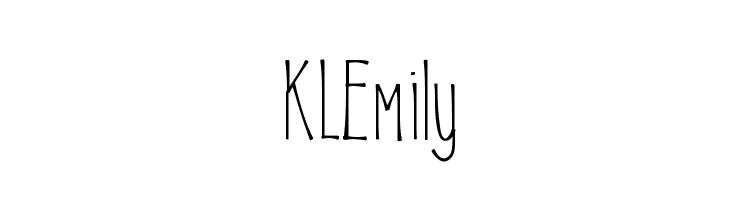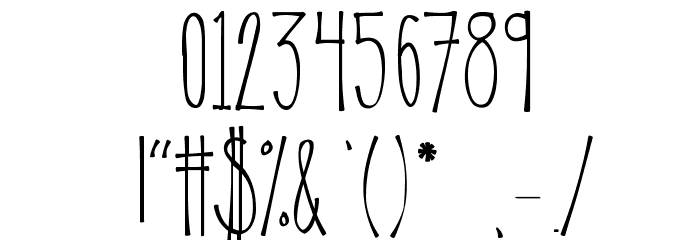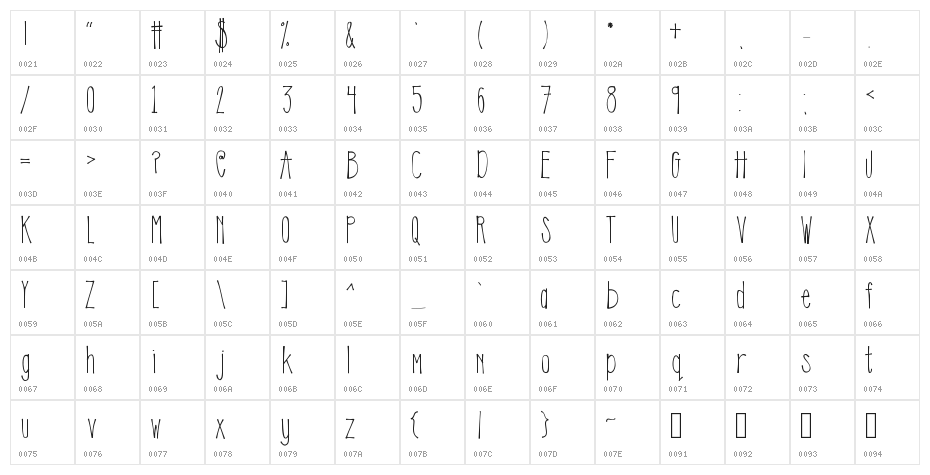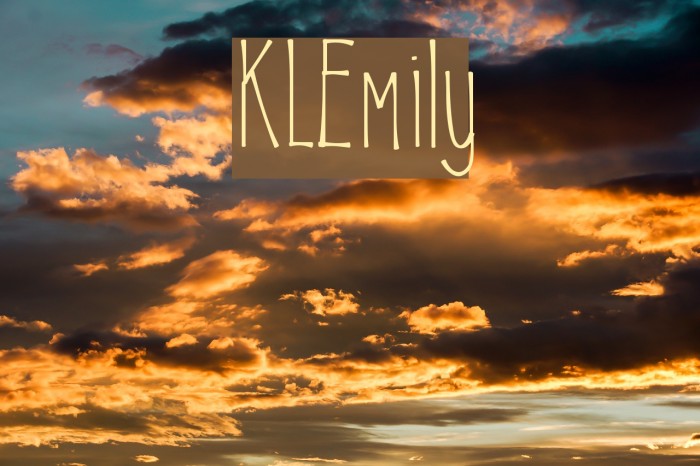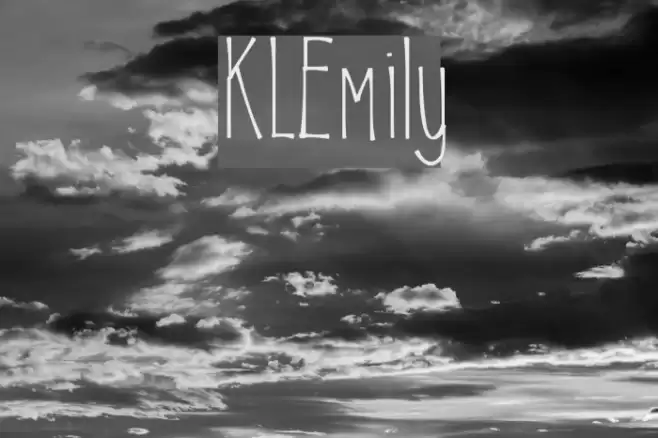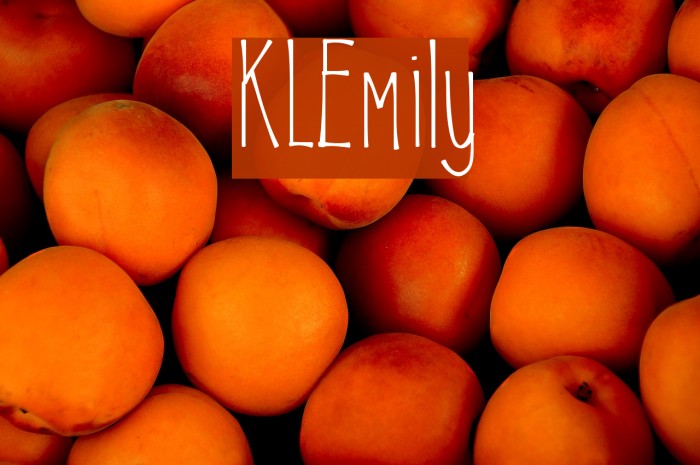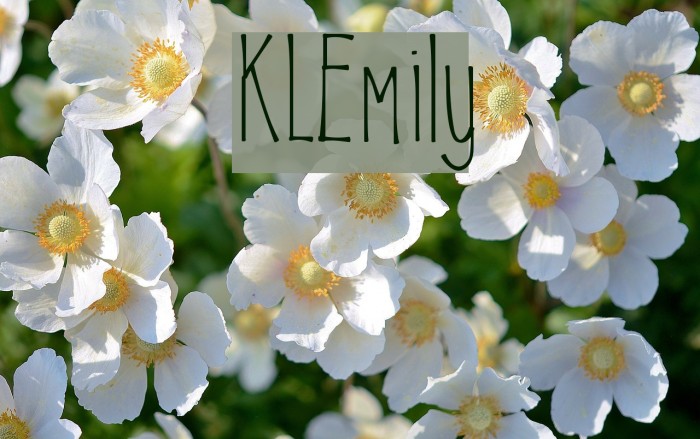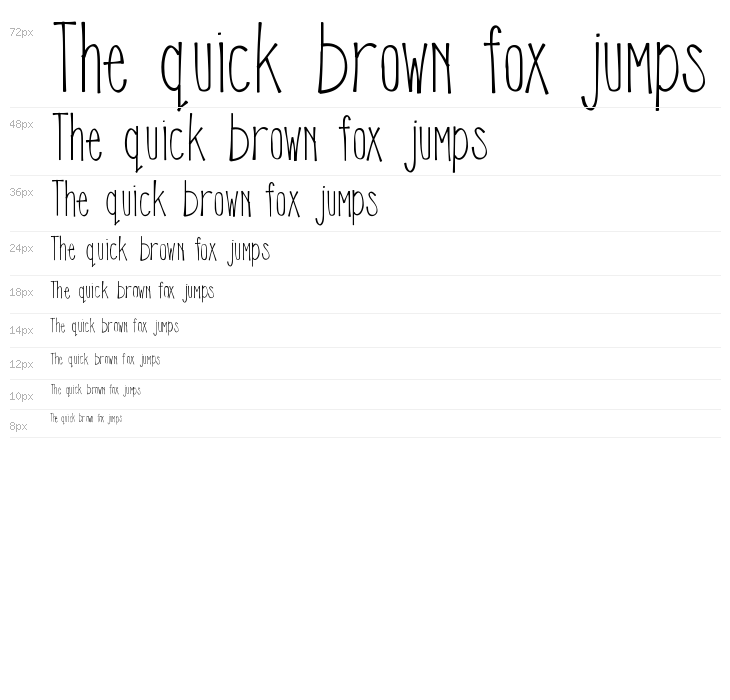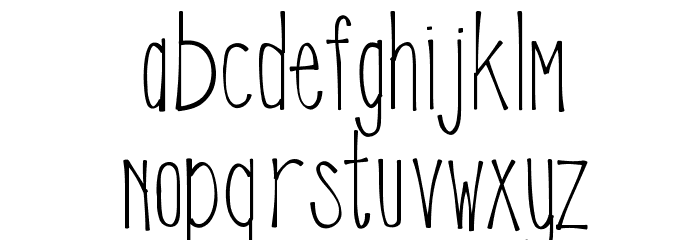
KLEmily Font
KLEmily Description
This font features a playful and whimsical handwritten style with tall, narrow characters. The strokes are uneven, giving it a casual and informal appearance. The uppercase letters are slightly taller than the lowercase, adding a unique character to the text. The numbers and special characters maintain the same playful aesthetic, making it versatile for creative projects. The overall design is approachable and friendly, suitable for projects that require a personal touch.
| Proposed Projects | Ideal for greeting cards, children's books, casual invitations, and playful branding. |